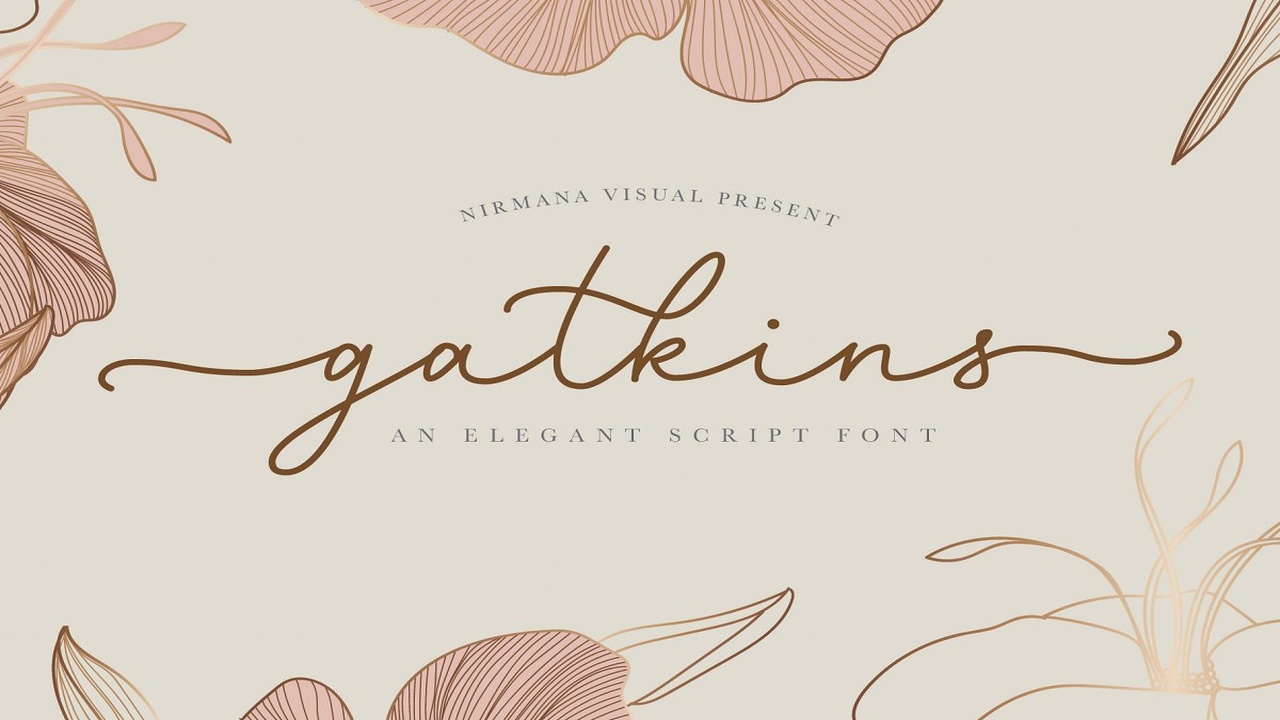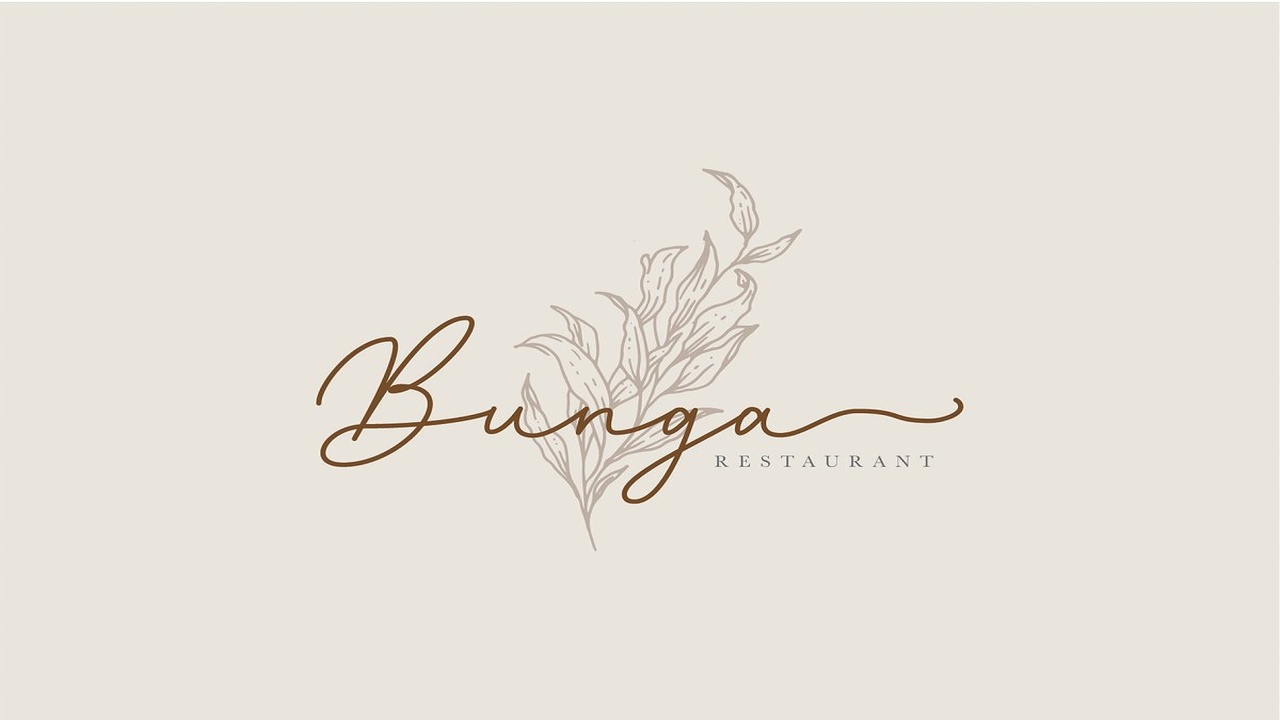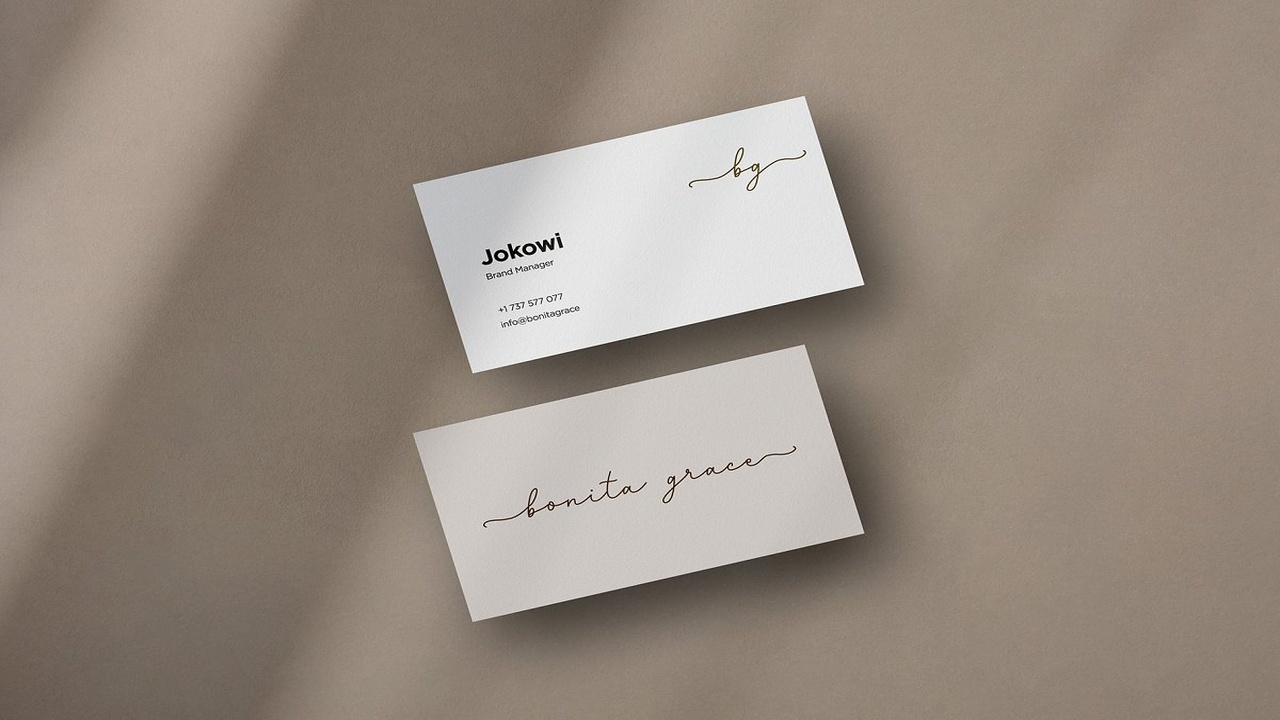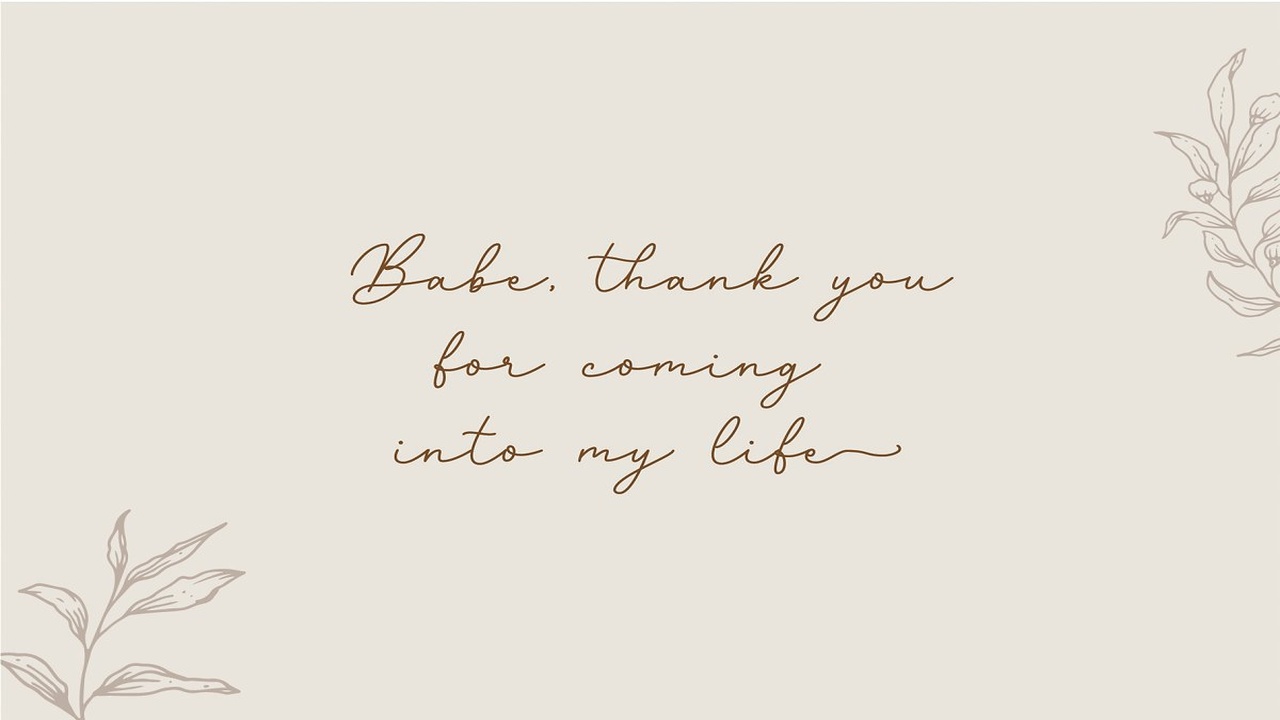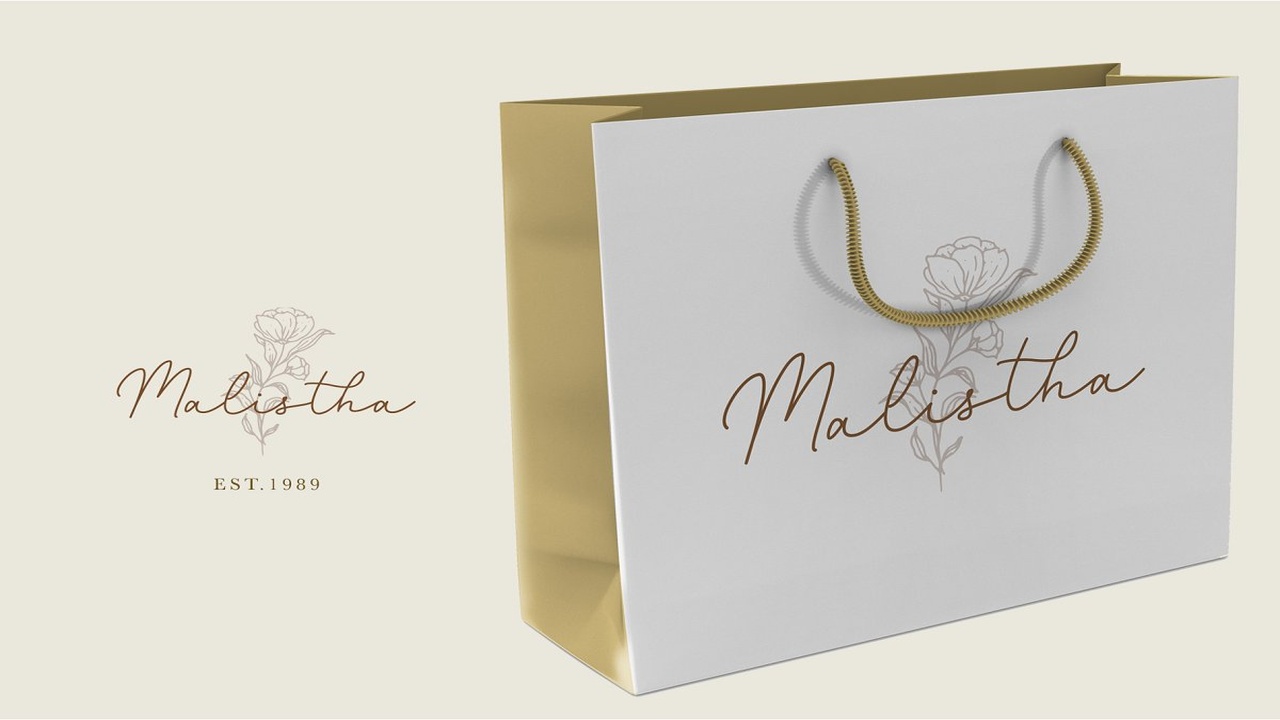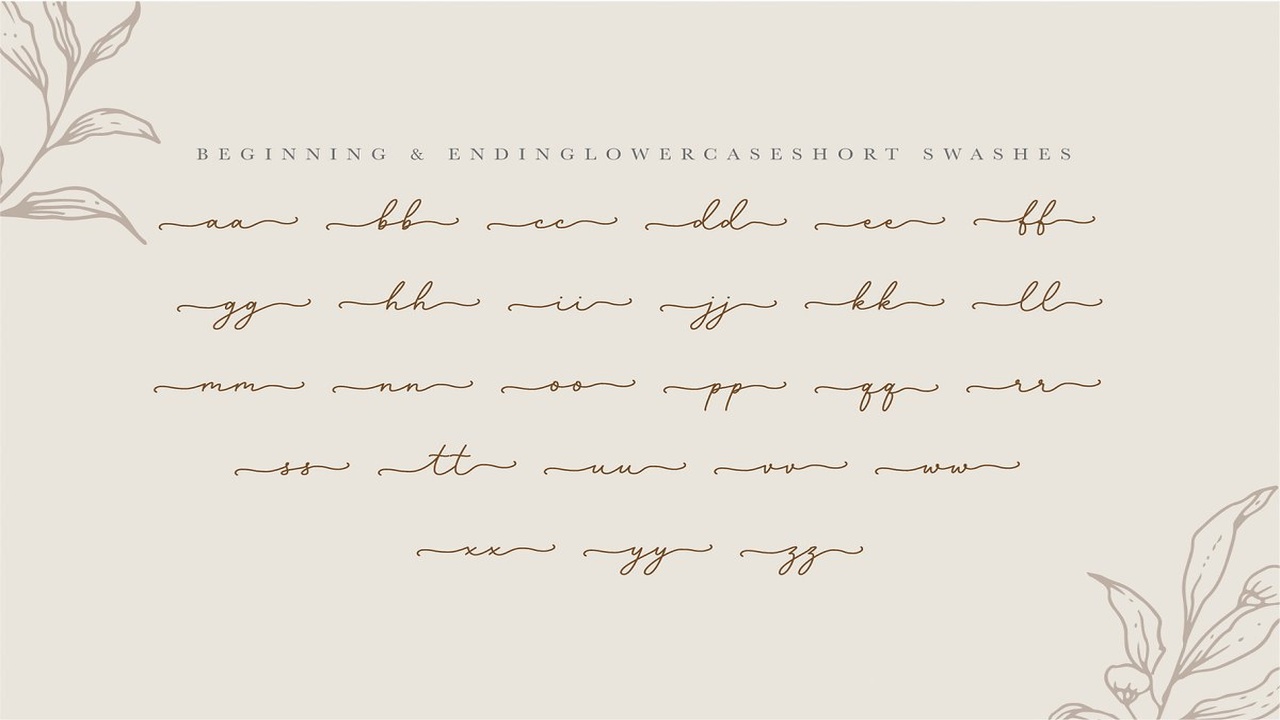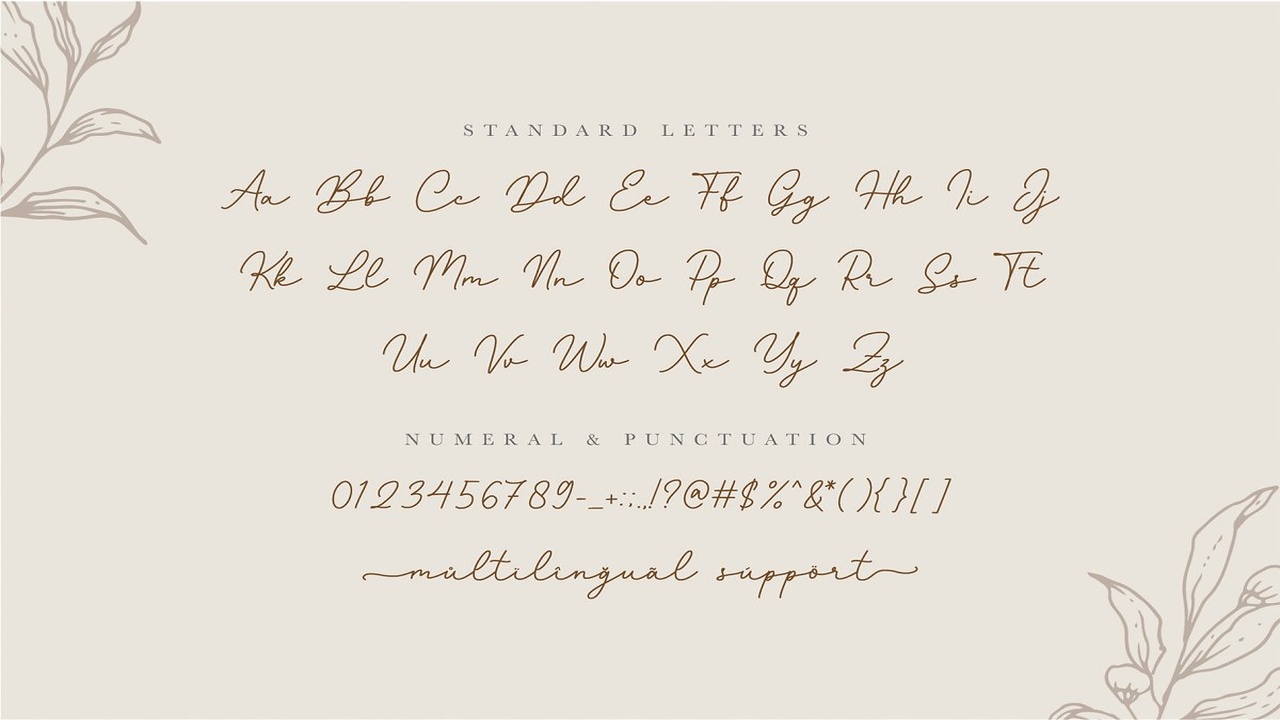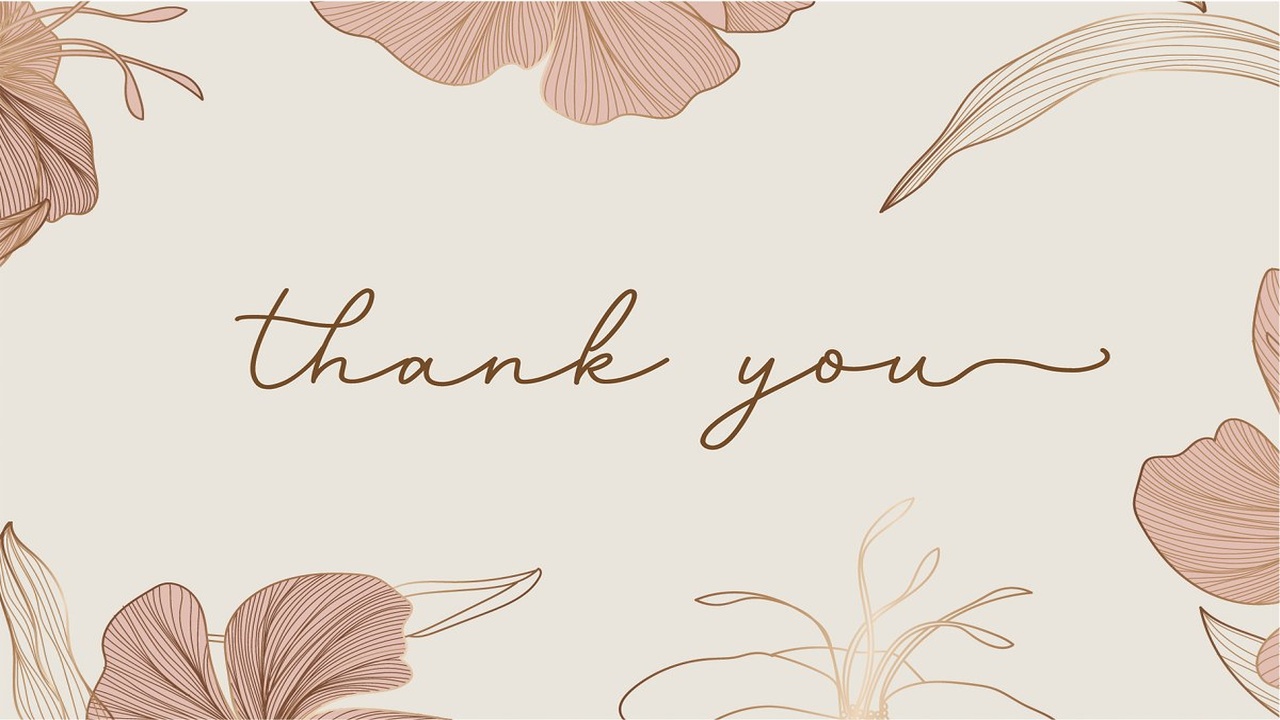
About the Gatkins Luxury Script Font
Gatkins is a Beautiful script font carefully created with a touch of romantic, This is a beautiful combination of timeless elegance and authentic calligraphy,It has lowercase beginning and ending swashes, features :-lowercase beginning and ending swashes, -multilanguange supportNOTE!!please make sure you know how to access alternate letters in the program you are using